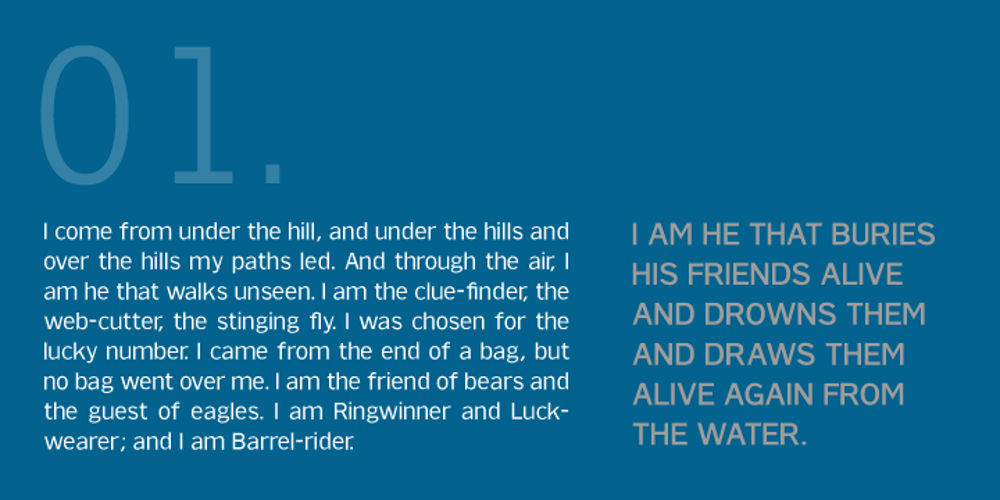
Sweck Font Family was designed by published by A New Machine. Sweck contains 3 styles and family package options. Sweck is a new sans serif font in three weights with italics. Legible at all sizes, Sweck will work for headlines as well as body text in print and web use.